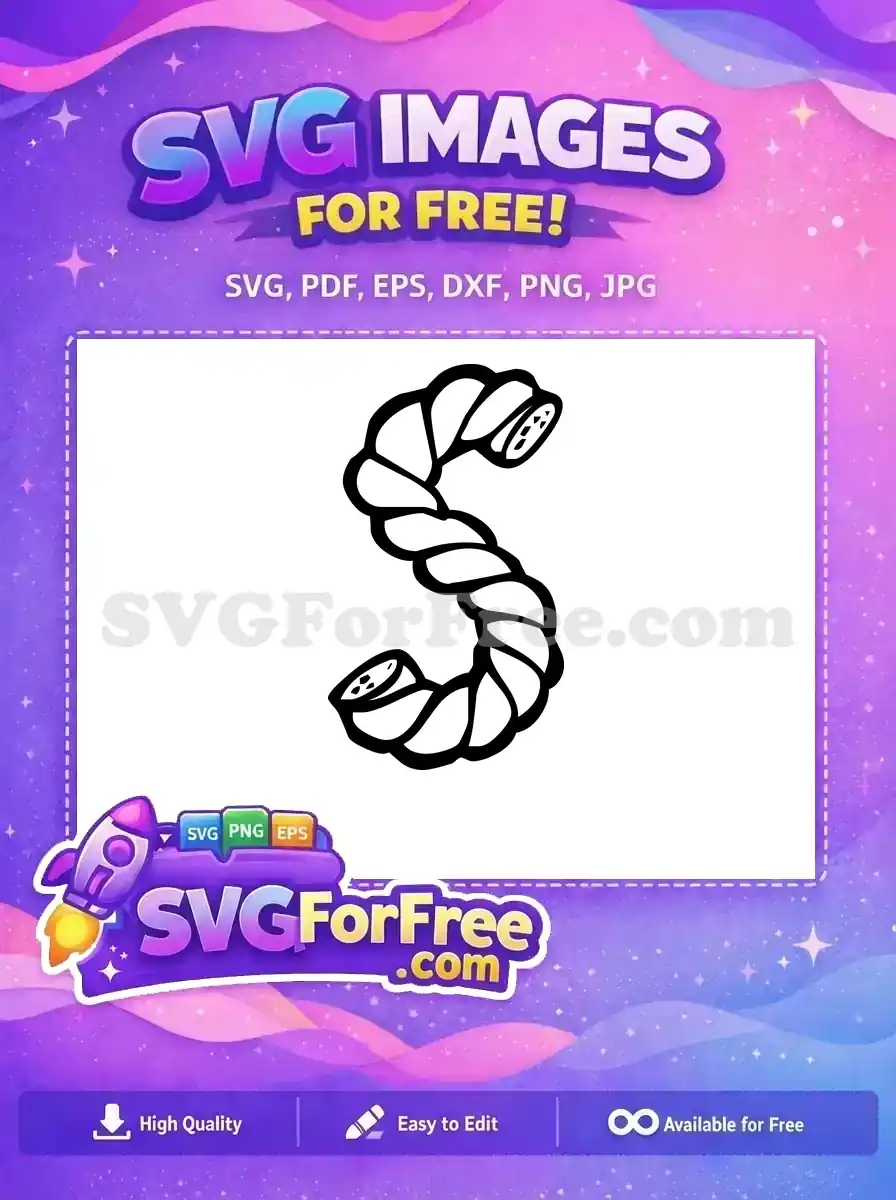
Free Letter S Font Free Black Design Alphabet Free SVG – Instant Download
A curving capital letter S rendered in a twisted rope style, presented as a no-cost vector graphic.
Free Letter S Font Free Black Design Alphabet Free SVG